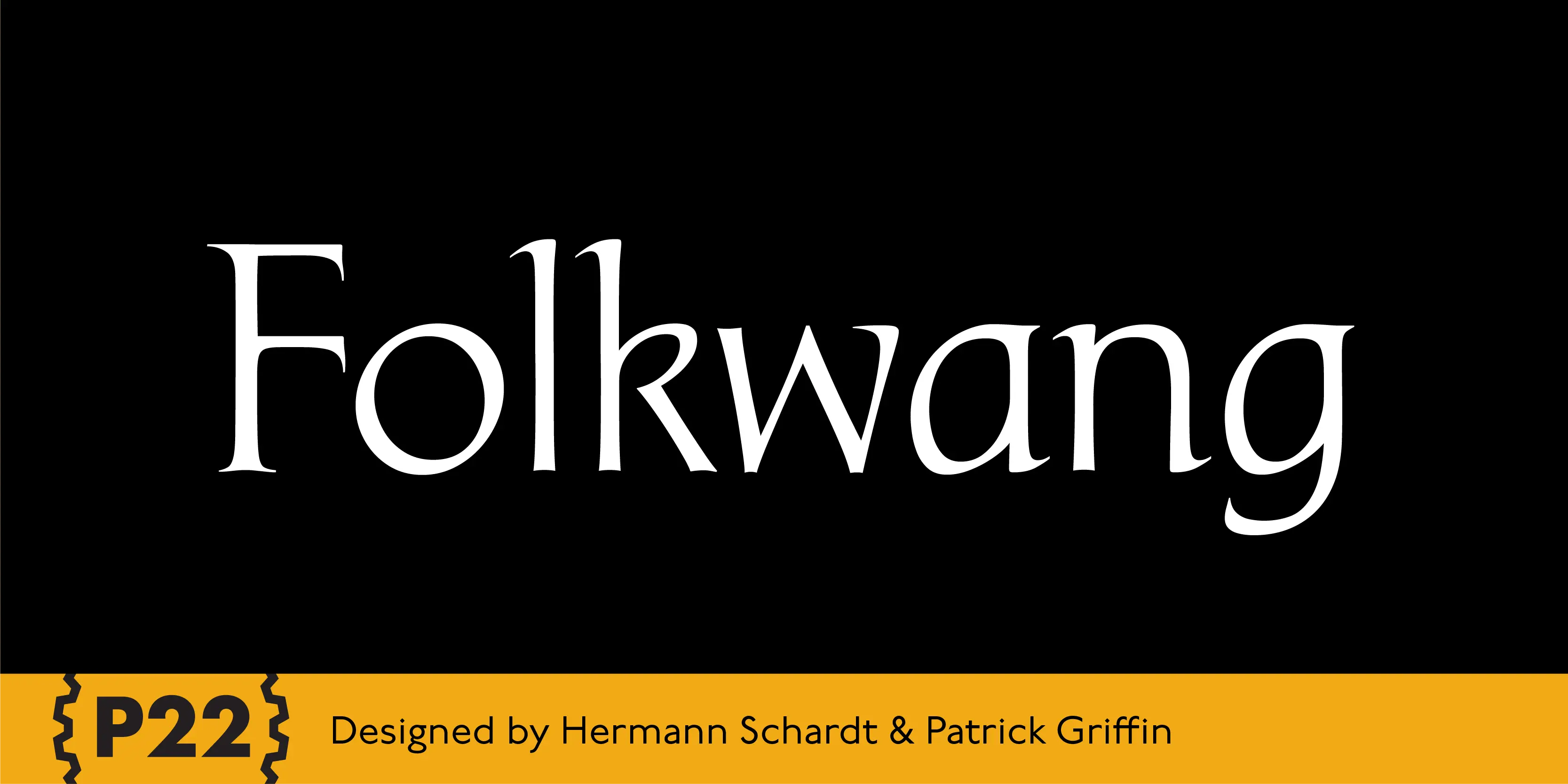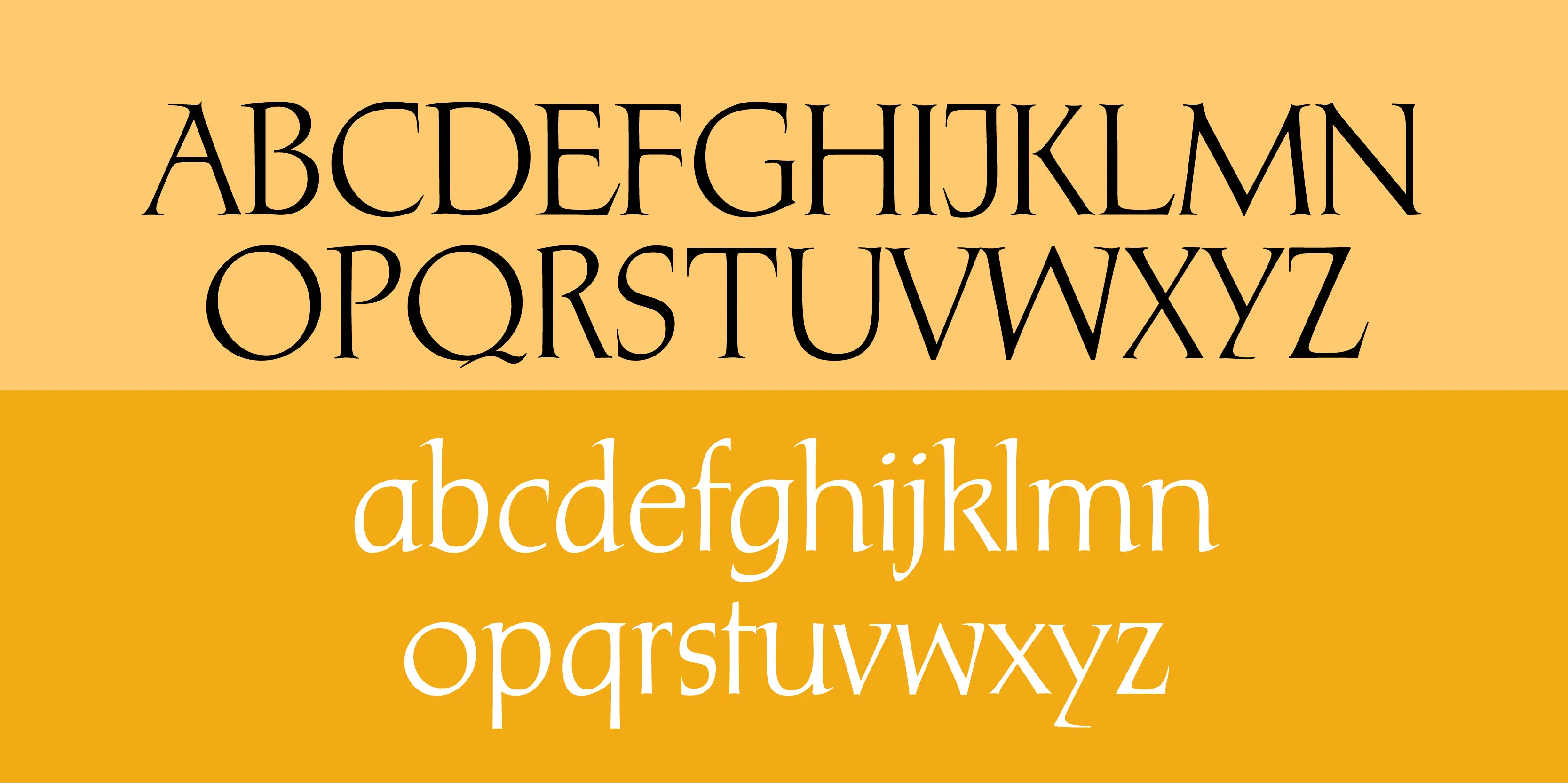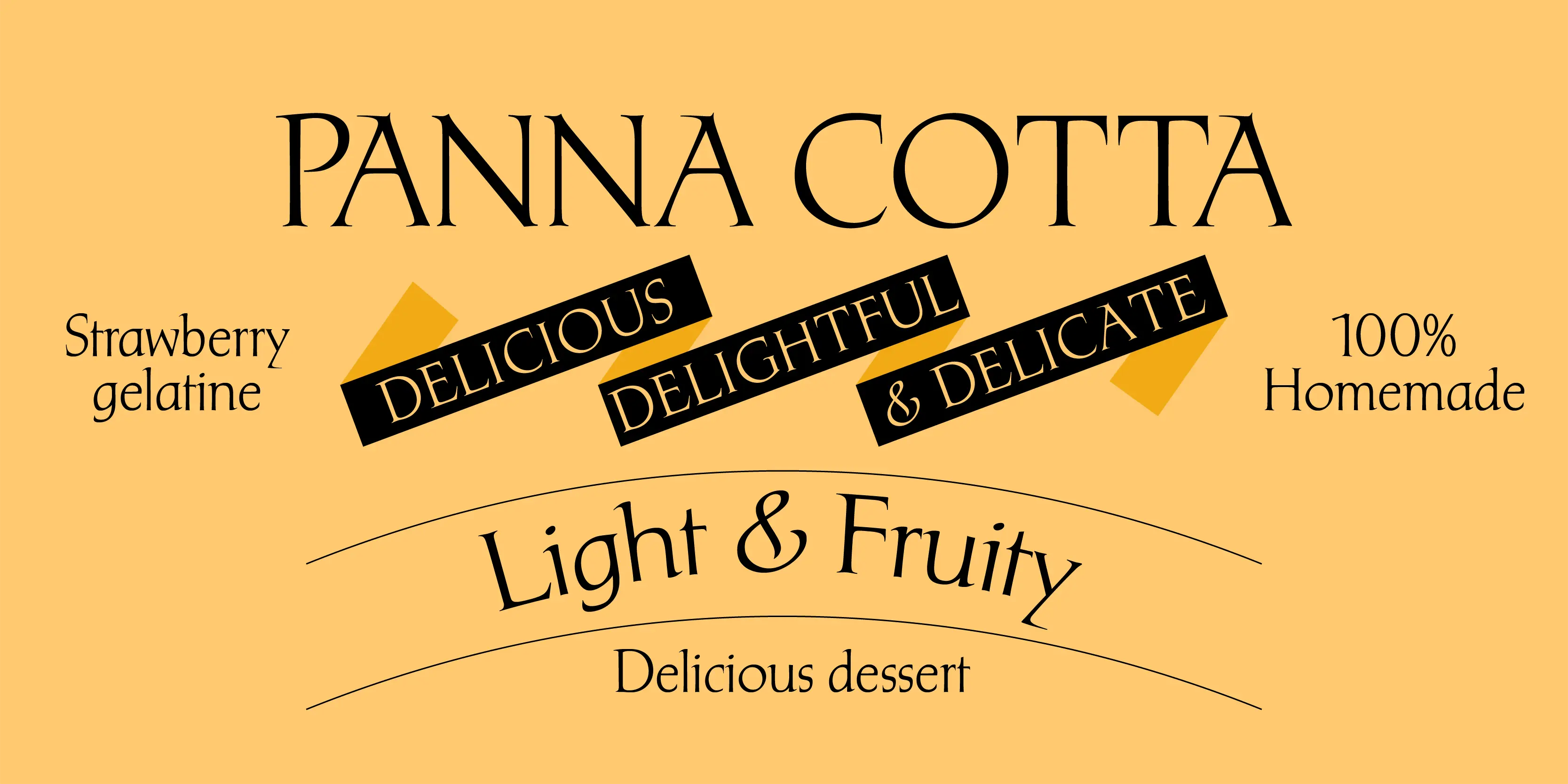
Folkwang Font
Folkwang
Folkwang is an unusual roman type with a lowercase that resembles an upright italic. Unusual top serifs are contrasted by almost no foot serifs. Originally released by the Klingspor foundry in 1955, this face originated from Hermann Schardt while he was the director of the Folkwang Werkkunstschule in Essen Germany circa 1949.
• Fractions
• Ordinal Numerals
• Subscript
• Superscript
• Swashes
Swashes
Stylistic Set 1
Stylistic Set 2
Fractions
Ordinals
Scientific Inferiors
Superscript
Subscript
Numerators
Denominators